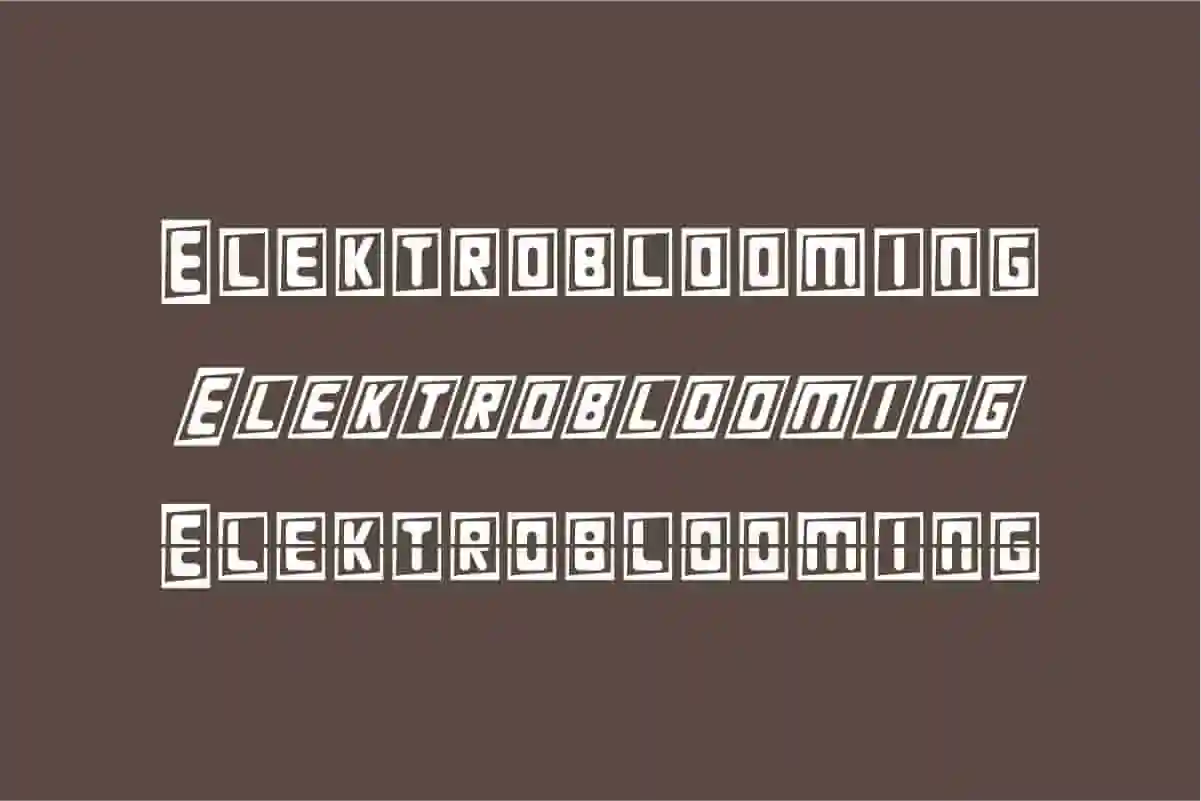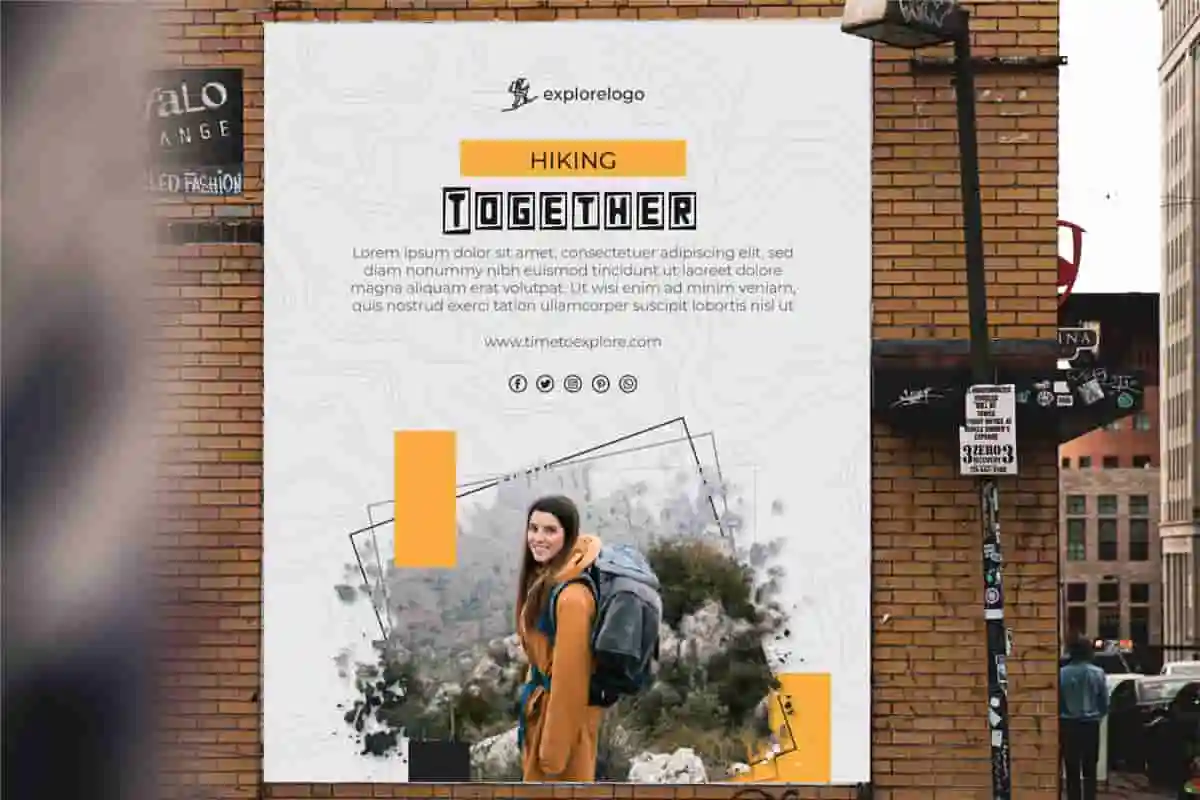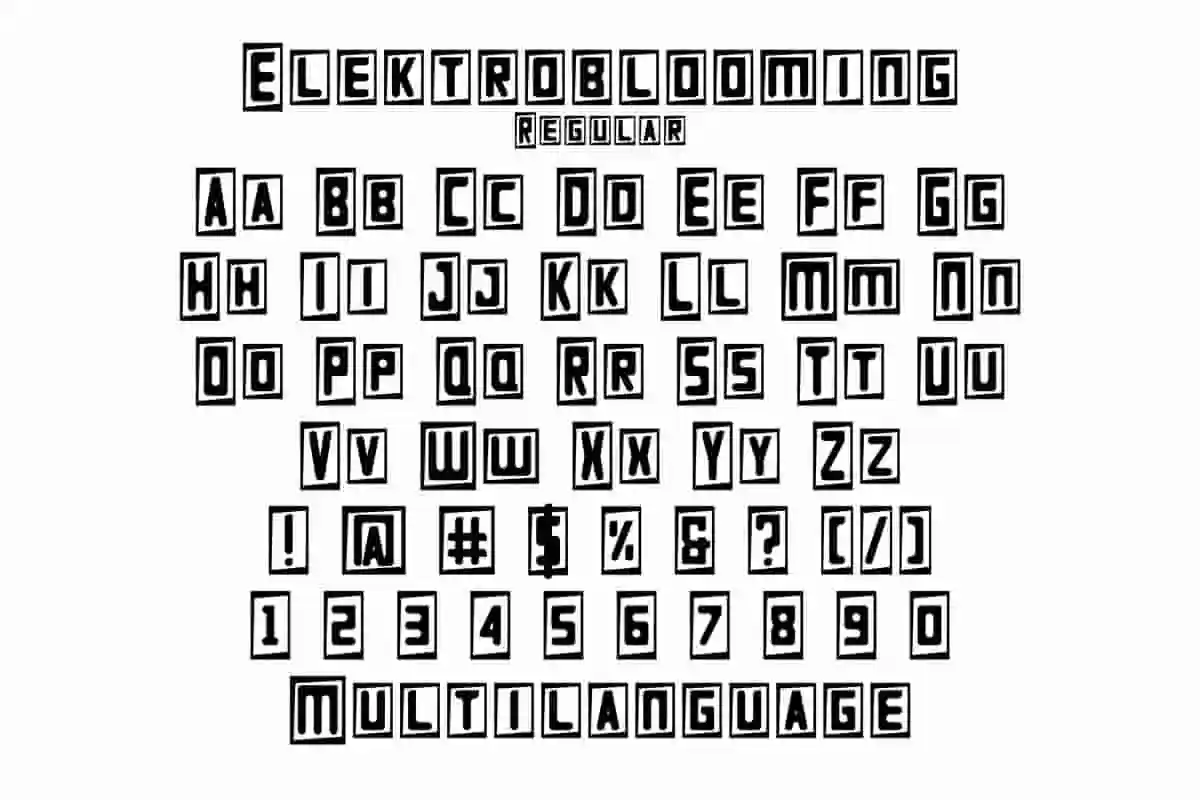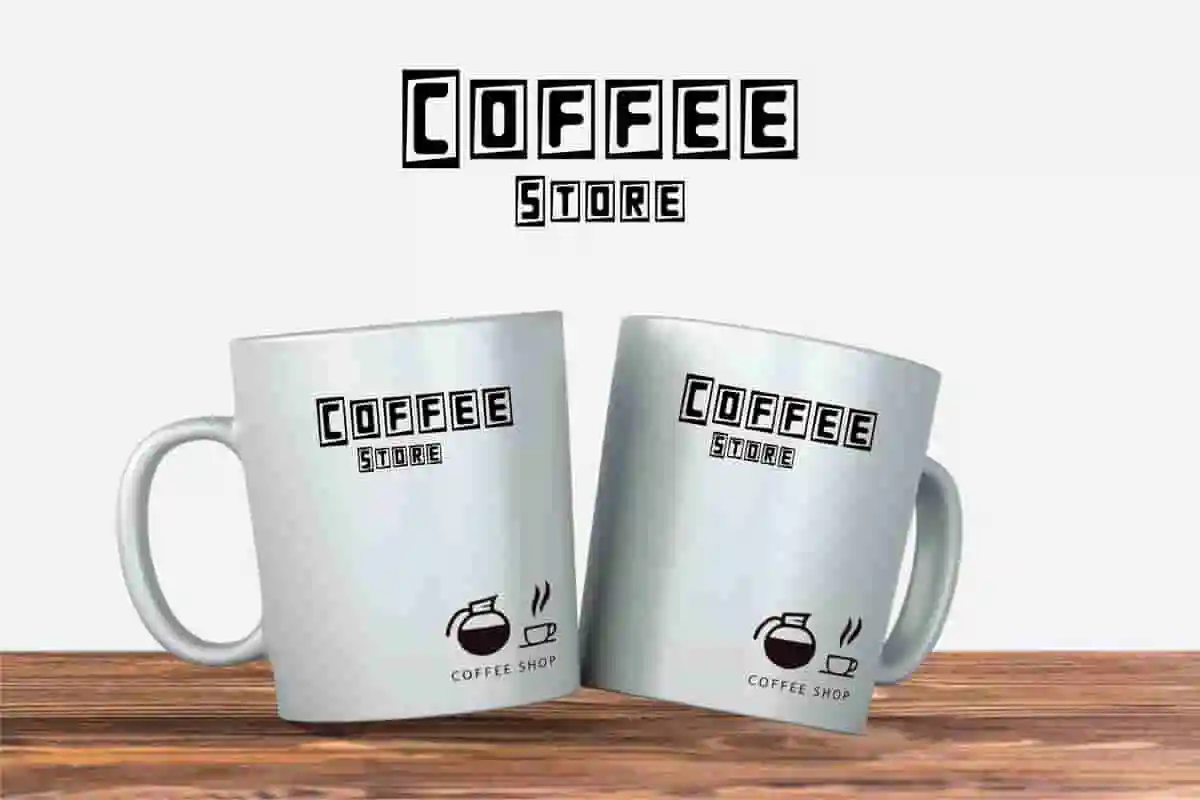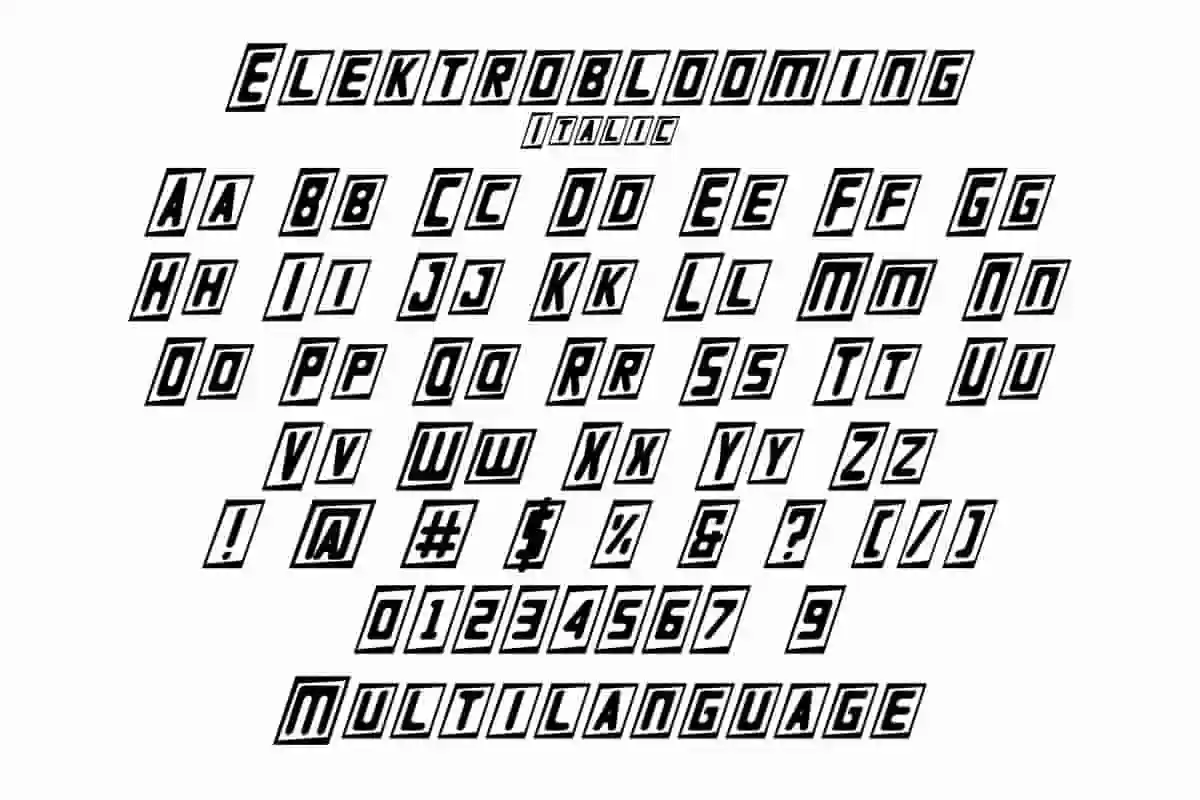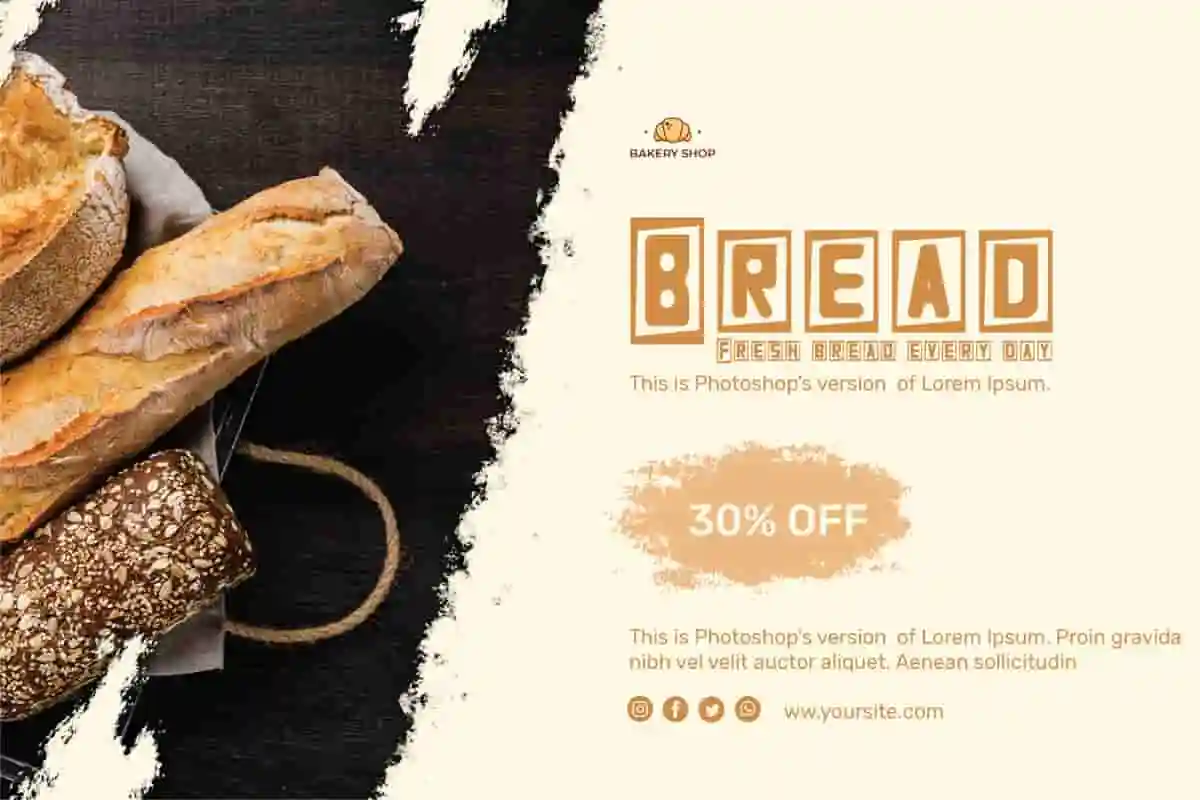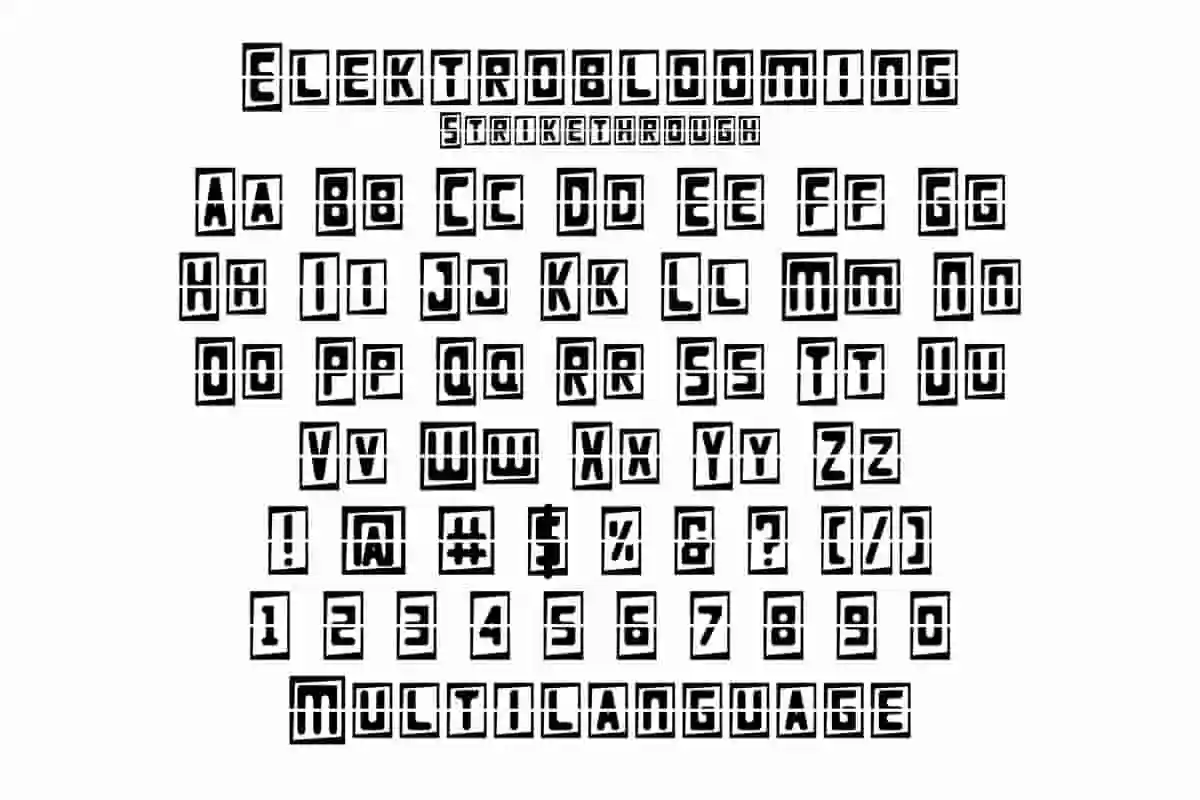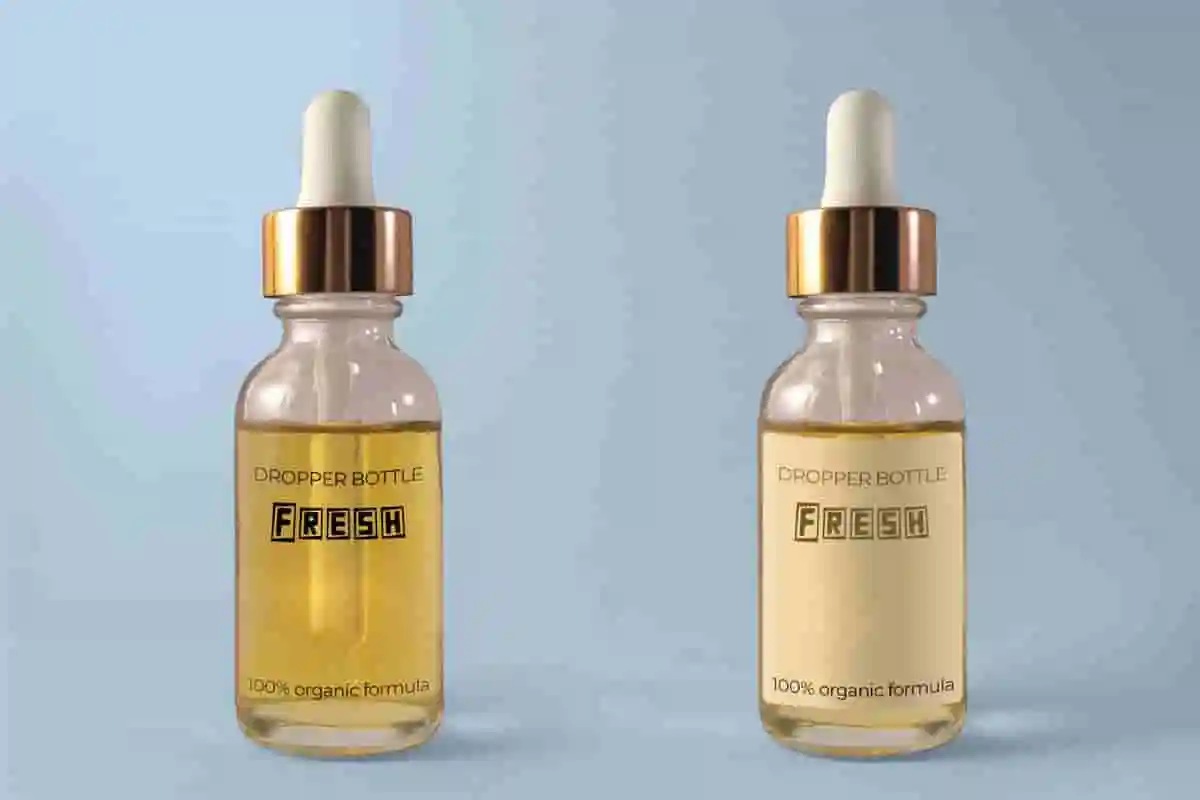
Elektroblooming Font
Elektroblooming Font is a decorative tags display font by NihStudio, made in 2021. Elektroblooming Font will great for events, logo, magazine, events or other projects.
Elektroblooming Decorative Font is a Sans/Serif unique decorative display font family originally designed by NihStudio. On the package you will get :